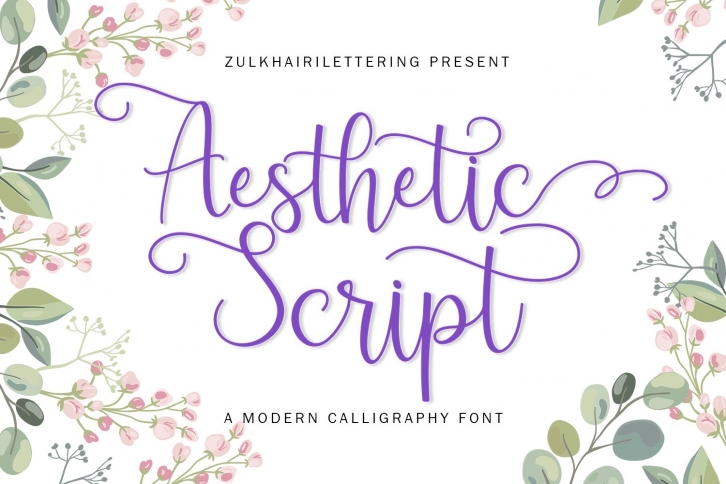
Aesthetic Script is a beautiful font that was designed by zulkhairilettering. It's a great choice for designers and creatives who need such a font. It was released on April 18, 2021 and the file size is 13.42 MB. Aesthetic Script may give a more youthful, expressive and casual look to your project. It is a very beautiful, refined, elegant, and high-quality font.